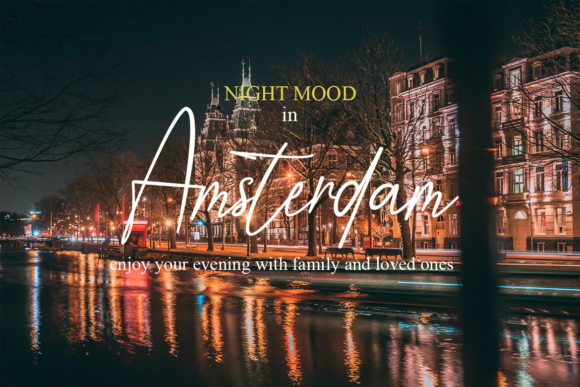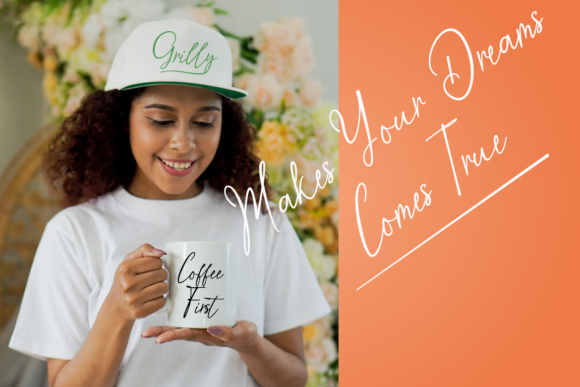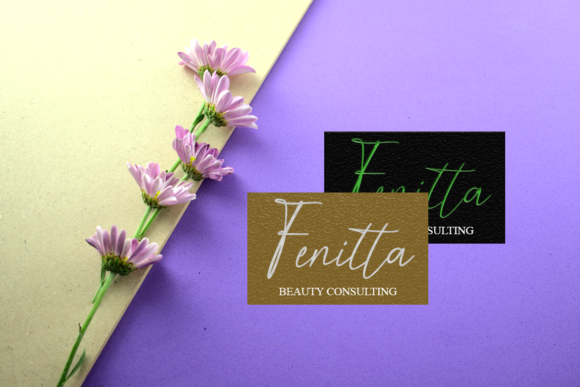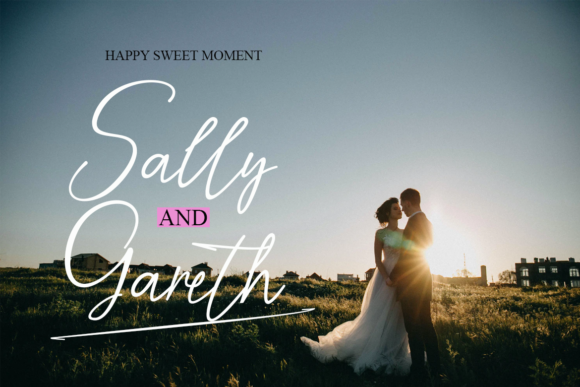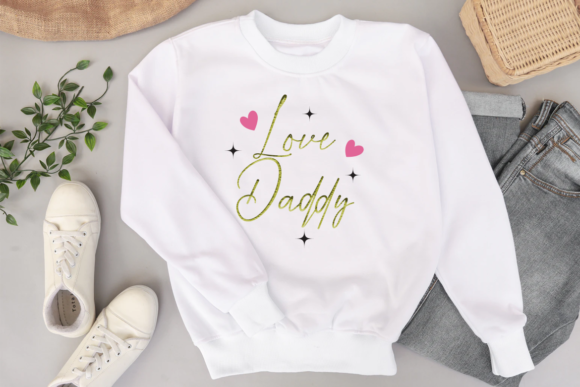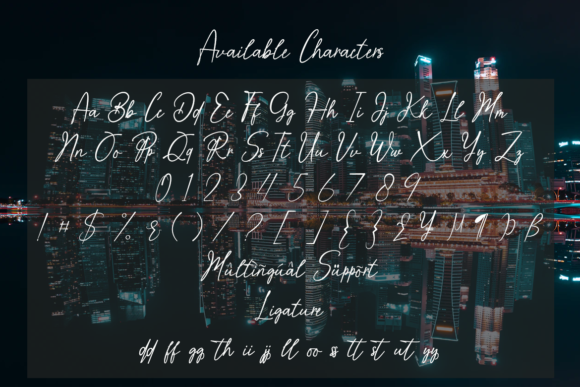
Introduction to Executive Class Font
Executive Class is a thin and graceful handwritten font.
Its distinct and well rounded letters make this font a masterpiece Fall in love with its incredibly versatile style and use it to create spectacular designs.